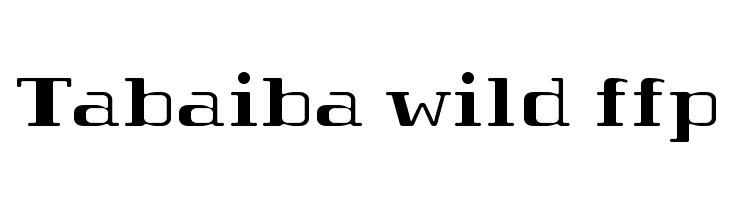
Tabaiba wild ffp Font
Tabaiba wild ffp Description
This font features a bold and dynamic style with a modern twist. The uppercase letters are characterized by sharp, angular serifs and a strong presence, while the lowercase letters maintain a consistent flow with slightly rounded edges. The numerals are distinct and clear, offering excellent readability. Special characters are designed with a unique flair, adding to the font's overall appeal. The combination of thick and thin strokes provides a medium contrast, making it suitable for various design applications.
A bold, modern serif font with angular serifs and medium contrast from Outline fonts.
- Proposed Projects: Ideal for branding, headlines, posters, and editorial design where a strong, modern serif is needed.